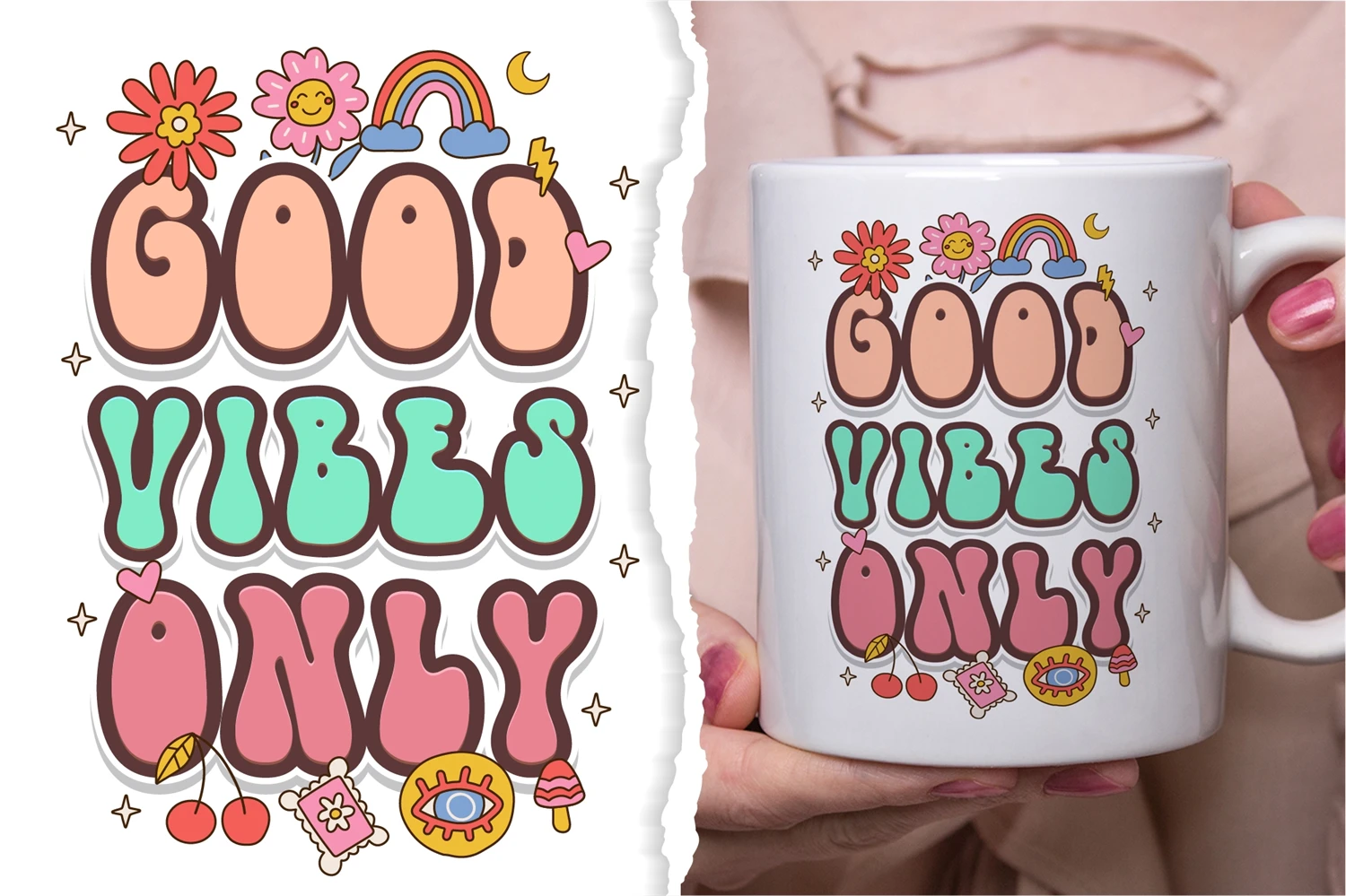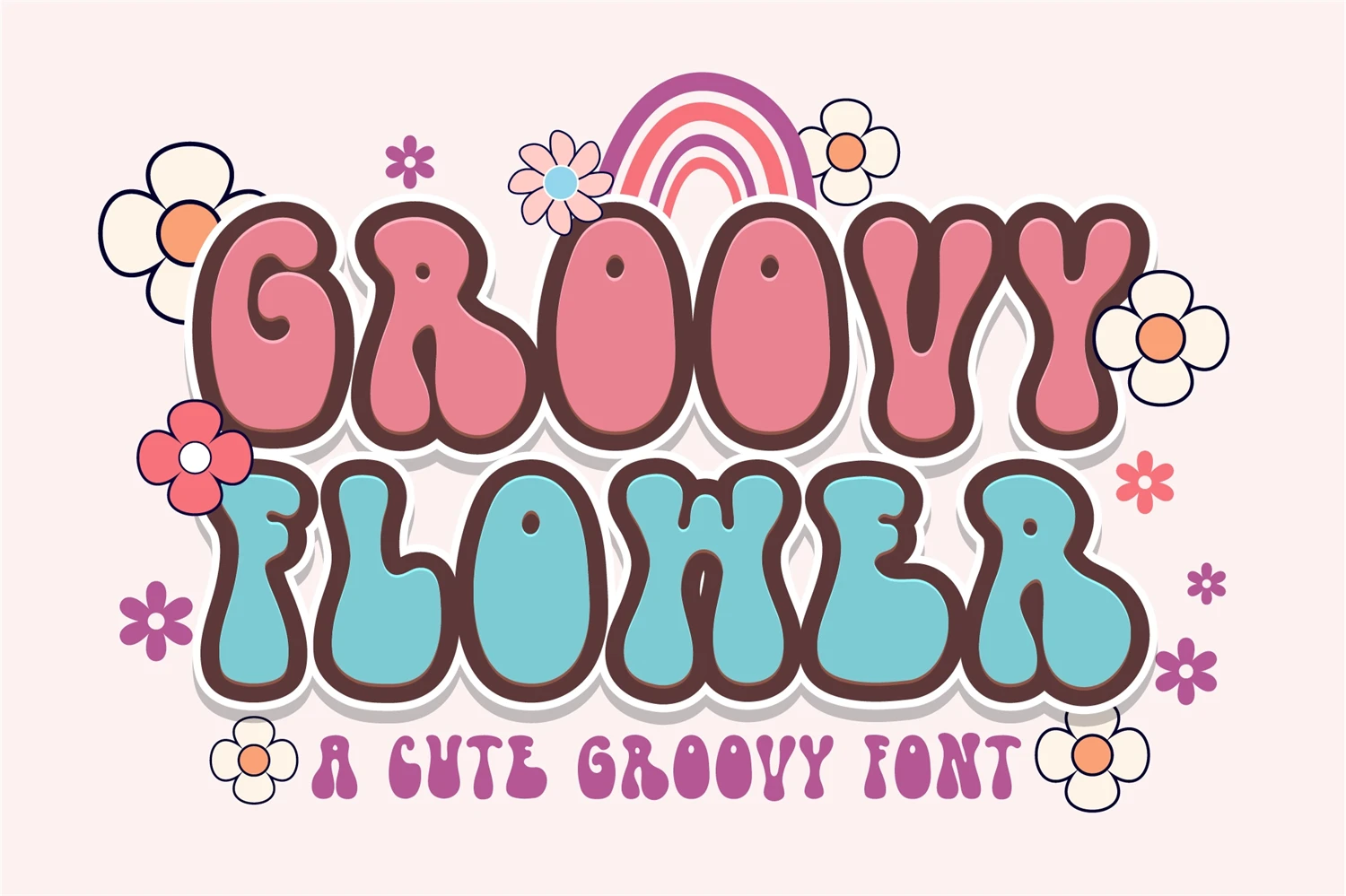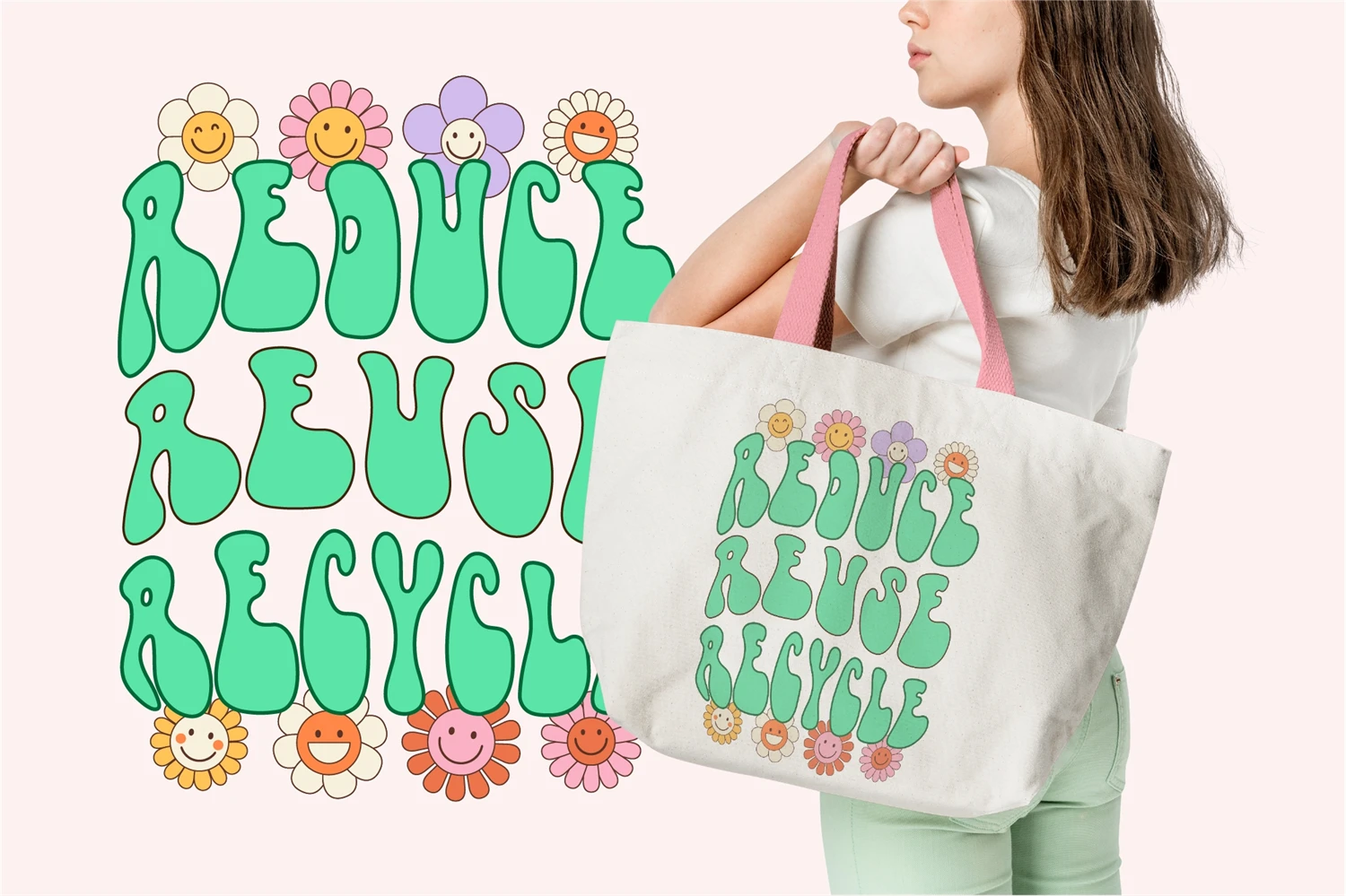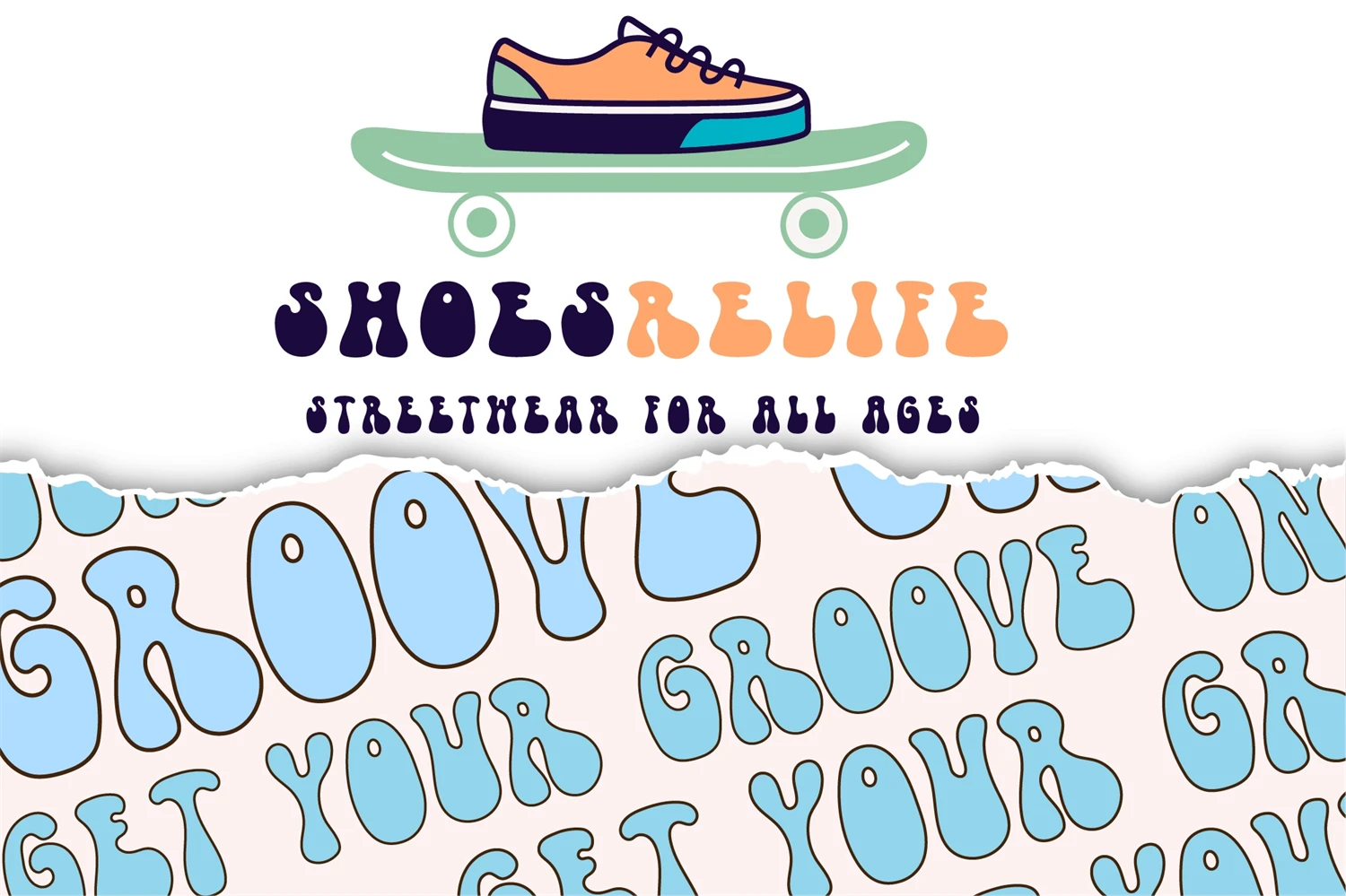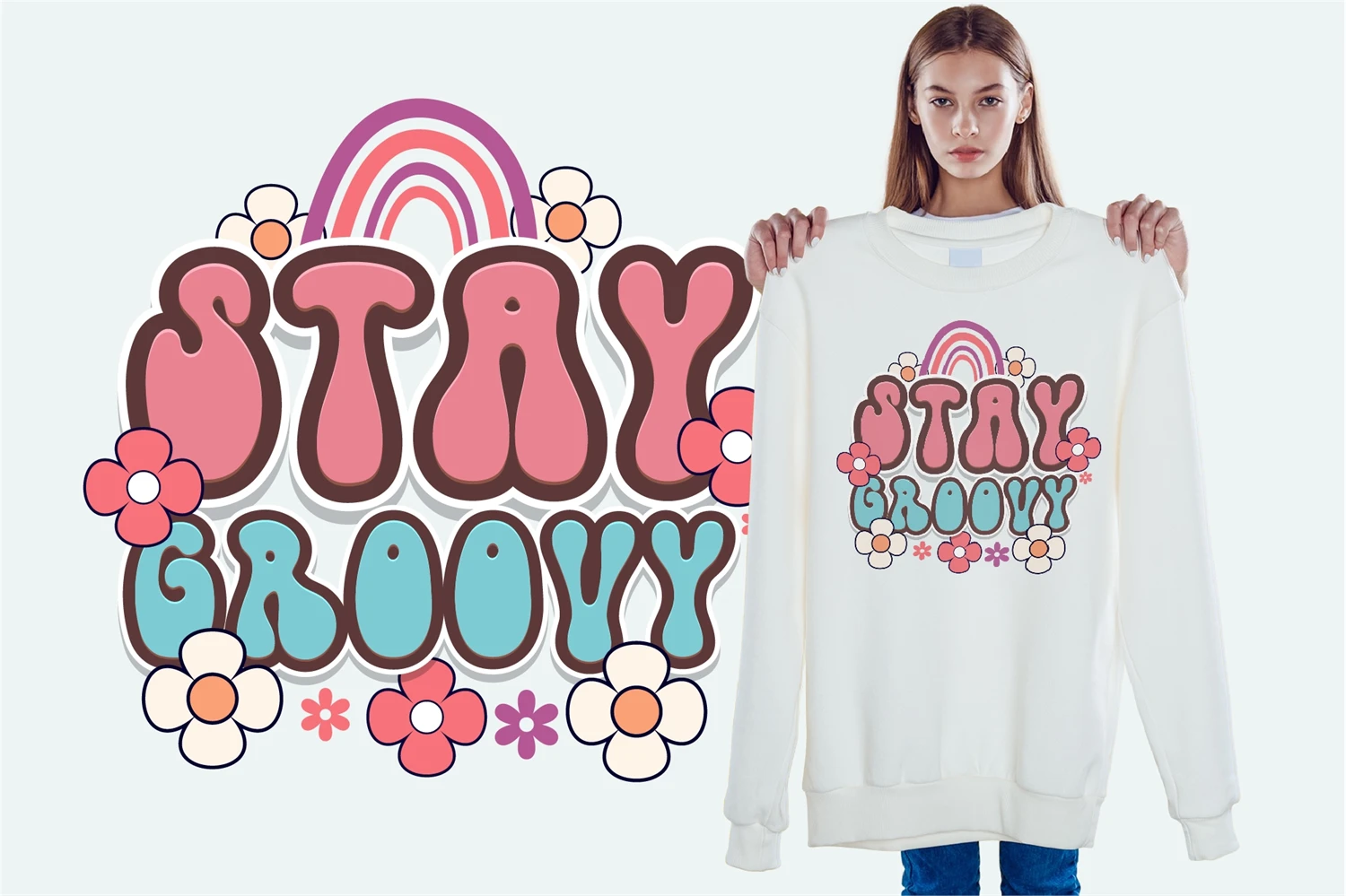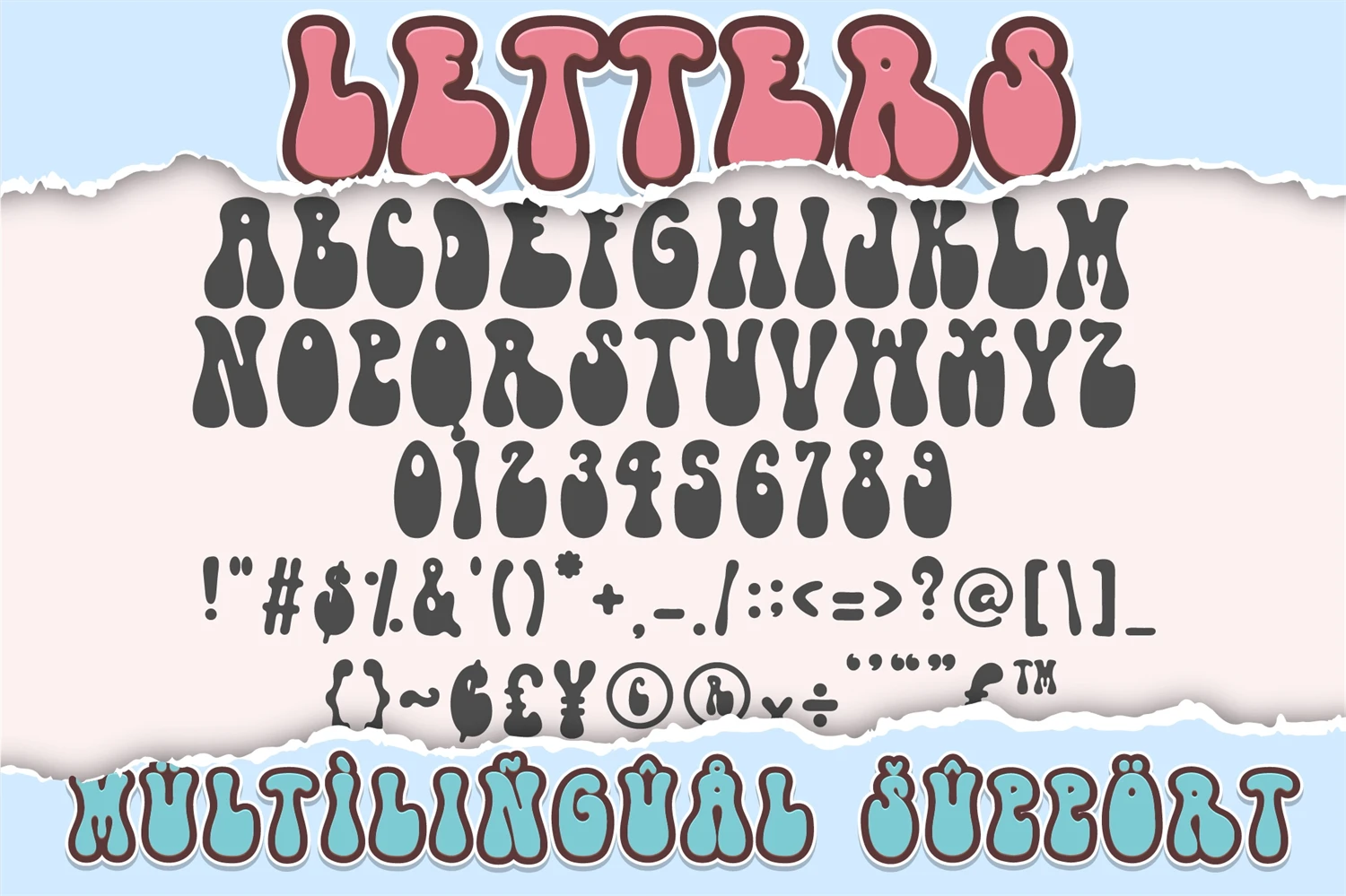
Groovy Flower is a charming and playful typeface that captures the essence of the retro groovy era. This font exudes a delightful vintage vibe with its cute and whimsical design, bringing back the nostalgia of the flower power era. Each letter is carefully crafted to incorporate groovy elements and a touch of flower-inspired flair. Perfect for posters, invitations, branding, and more, the Groovy Flower Font adds a unique and captivating style to your designs, making them stand out with retro charm and groovy goodness.